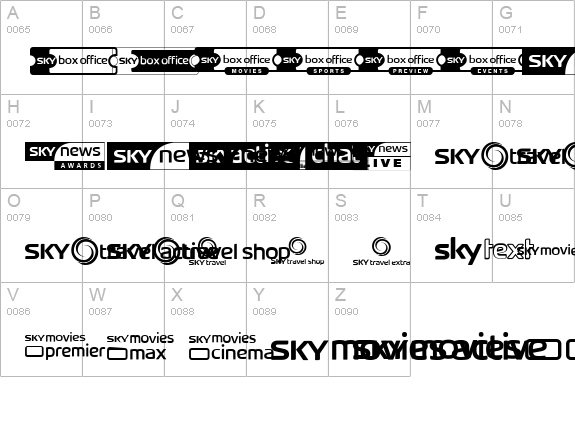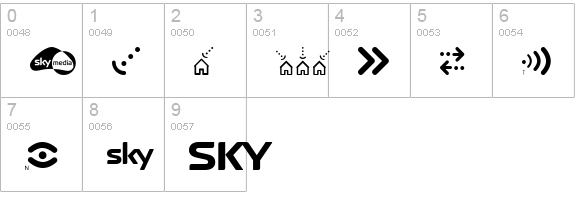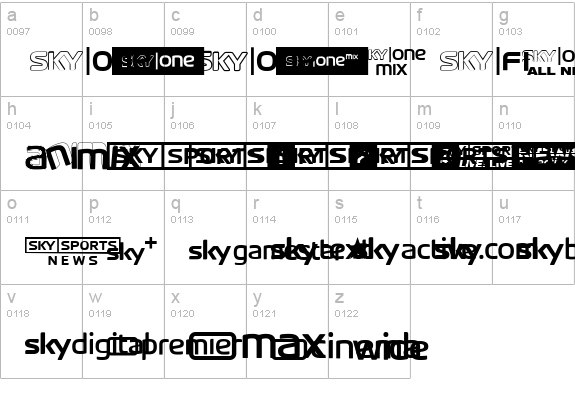
Sky TV Channel Logos Font Details
Introducing the captivating and modern Sky TV Channel Logos font, a versatile typeface that is set to elevate your design projects to new heights. With its sleek and sophisticated aesthetic, this font is the perfect choice for any creative endeavor, whether it be designing captivating logos, crafting eye-catching advertisements, or creating stunning branding materials. The Sky TV Channel Logos font boasts a wide range of characters, from clean and sharp lines to elegant and flowing curves, allowing you to effortlessly convey your message with style and professionalism. Its carefully crafted letterforms exude a sense of confidence and sophistication, making it the ideal choice for any project that requires a touch of elegance. But what sets the Sky TV Channel Logos font apart is not only its mesmerizing design, but also its accessibility. This font is available for free download at FontsMarket.com, allowing you to enhance your design projects without breaking the bank. Whether you're a professional graphic designer or an enthusiastic hobbyist, this font is freely available for you to explore and utilize in your creative ventures. With its versatile nature and accessibility, the Sky TV Channel Logos font is an essential tool in any designer's arsenal. So why wait? Download this remarkable font today and unlock a world of possibilities for your design projects. Let your creativity soar with the captivating and freely available Sky TV Channel Logos font from FontsMarket.com.